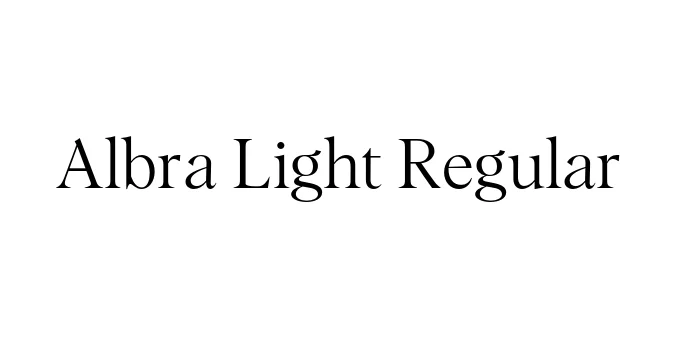
Albra Light Regular
Designed by BumbumType
Albra Light Regular is a sophisticated high-contrast serif typeface that strikes a perfect balance between timeless elegance and contemporary flair. Part of the larger Albra collection, this specific weight focuses on refined hairlines and precise geometry, offering a delicate aesthetic that is highly sought after in the world of high-fashion and luxury branding. Its design language draws inspiration from classic transitional serifs but incorporates modern proportions to ensure it remains versatile across various media formats.
The typeface is characterized by its sharp terminals and graceful curves, making it particularly effective for large-scale display applications. In editorial contexts, Albra Light Regular provides a sense of prestige and clarity, allowing for breathable layouts that feel both premium and accessible. Whether used in print or digital interfaces, it maintains a strong visual identity that elevates the surrounding design elements without overwhelming them.
Albra Light Regular Best Uses
Perfect for magazine mastheads, body text in luxury journals, and high-end catalogs.
Ideal for logos in the fashion, beauty, and lifestyle sectors seeking a premium look.
Excellent for hero sections and headings on minimalist portfolios or boutique e-commerce sites.